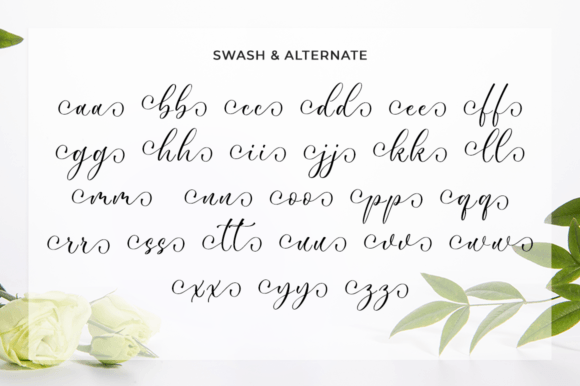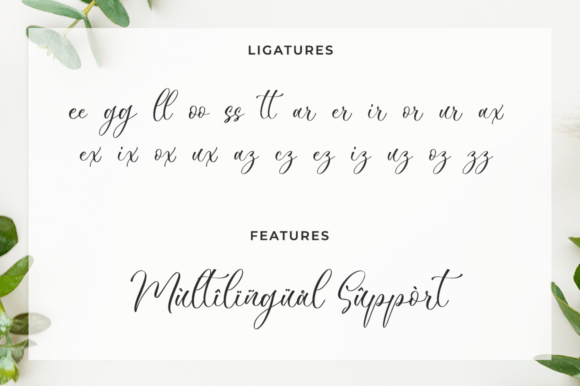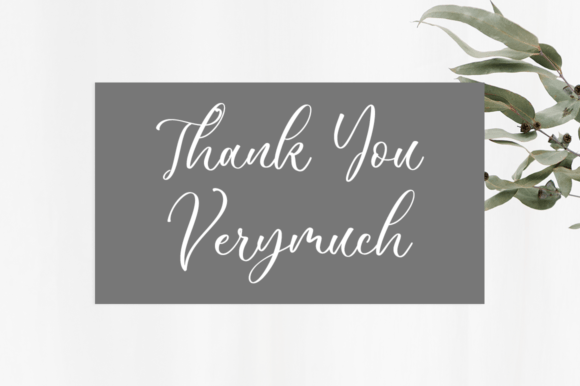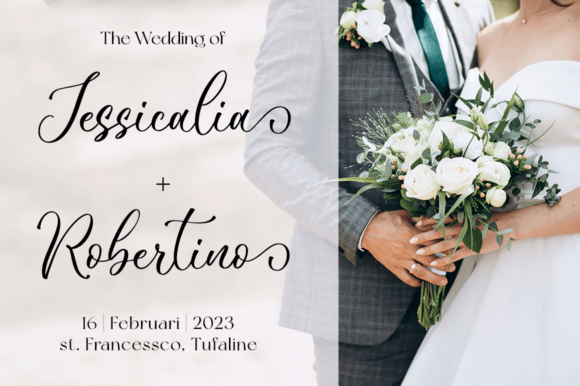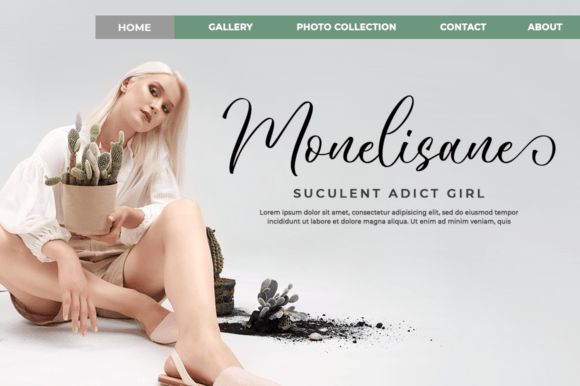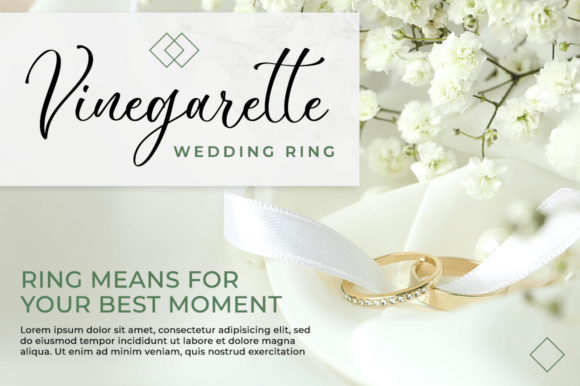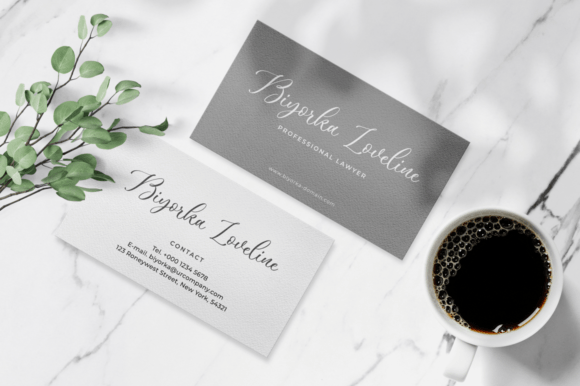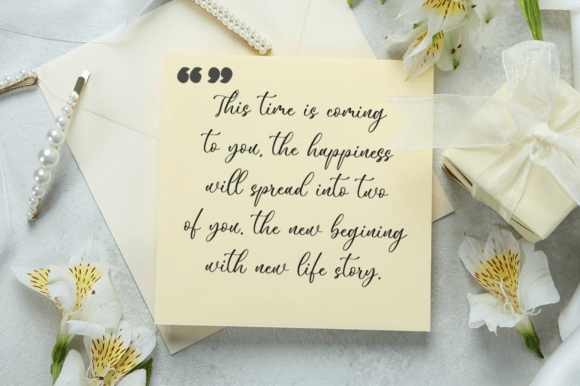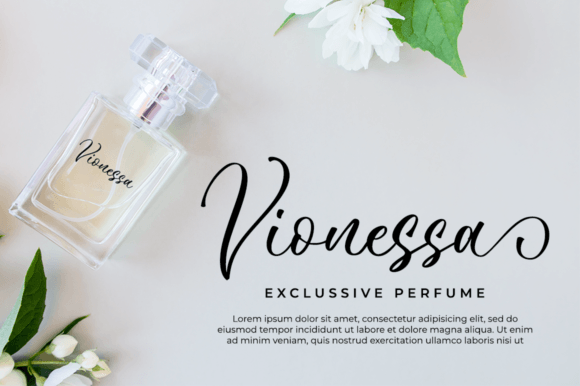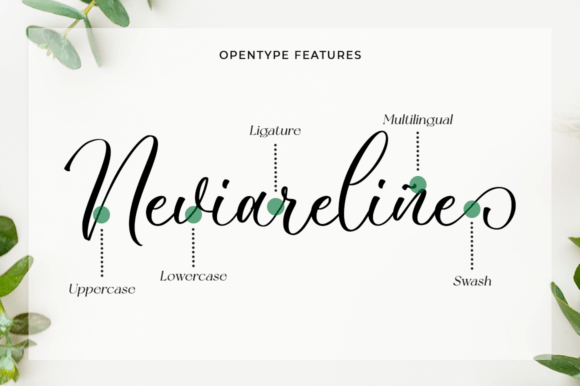
Windensore Font
About Windensore Font
Windensore is a beautiful and delicate handwritten font with a unique feel and a stunning impact. It will add a luxury spark to any design project that you wish to create! This font is PUA encoded which means you can access all of the amazing glyphs and ligatures with ease!